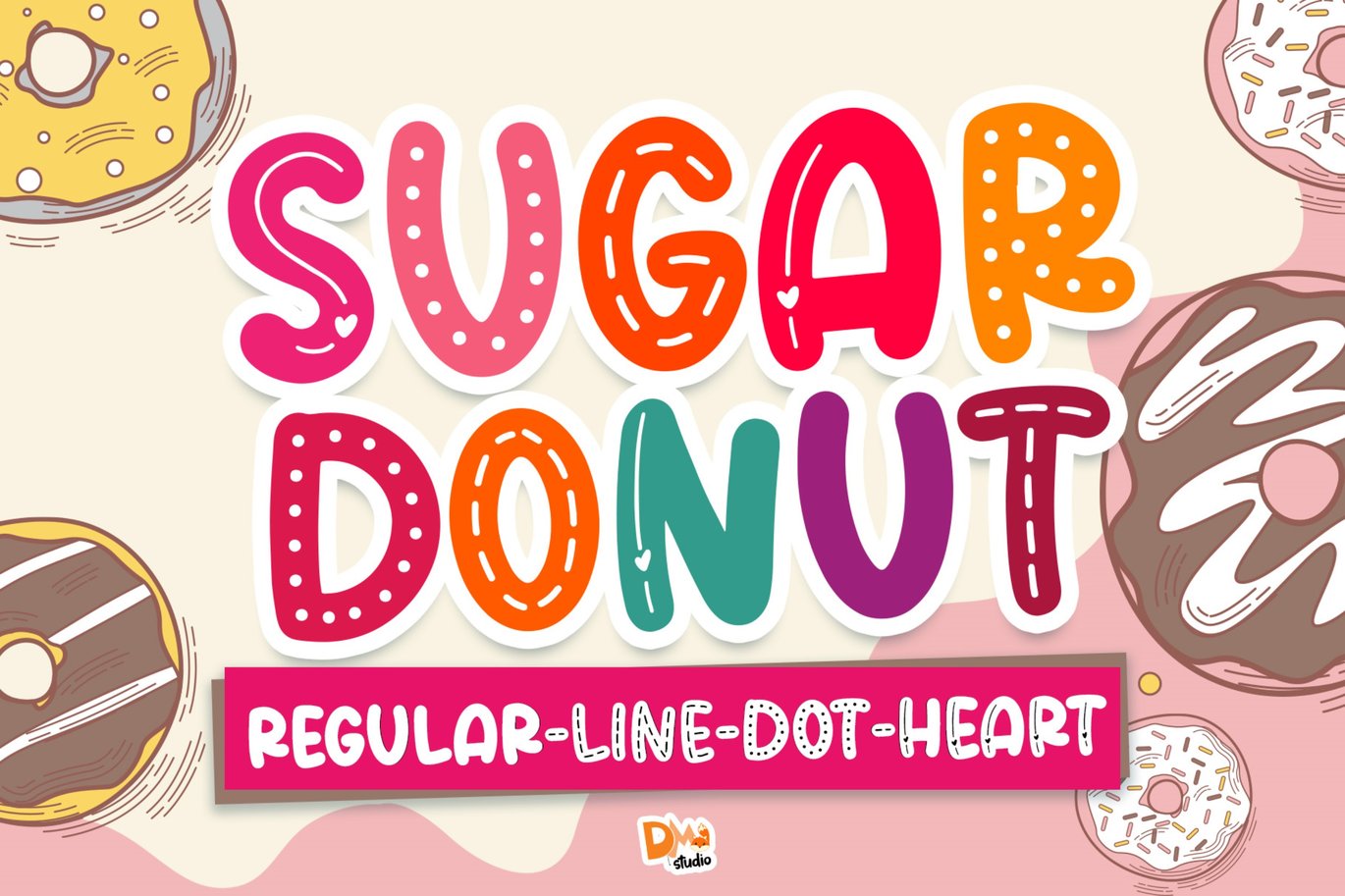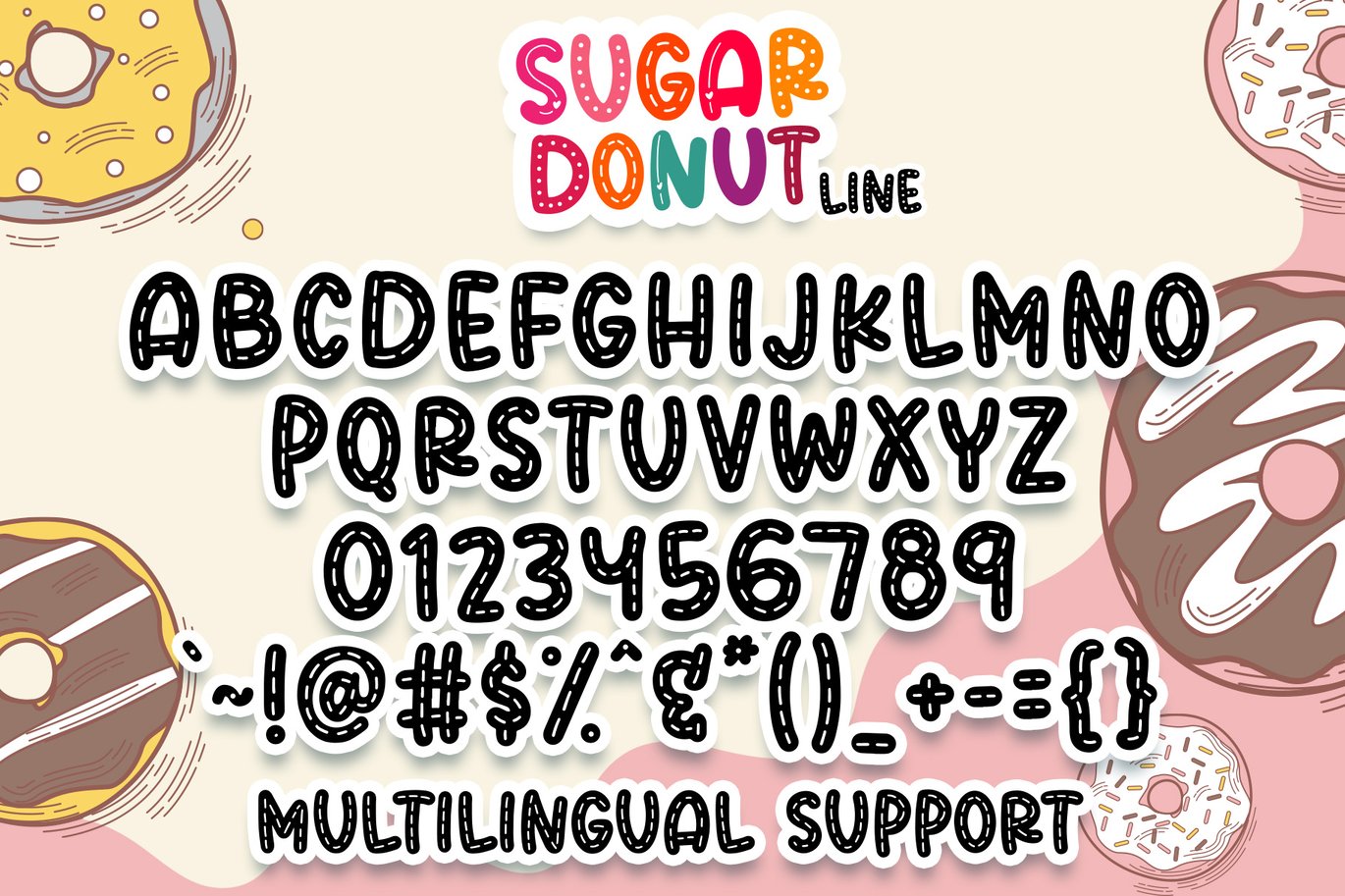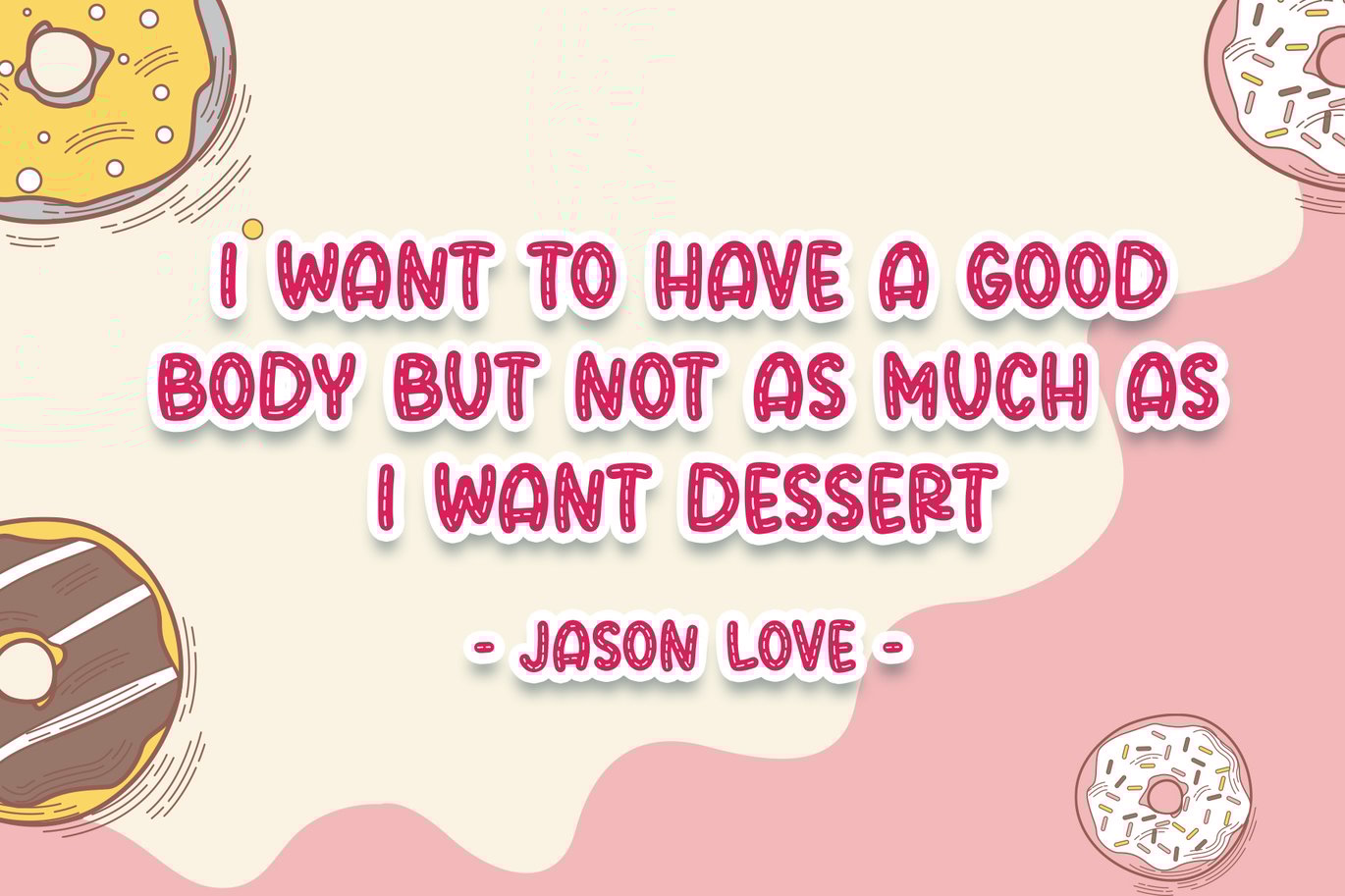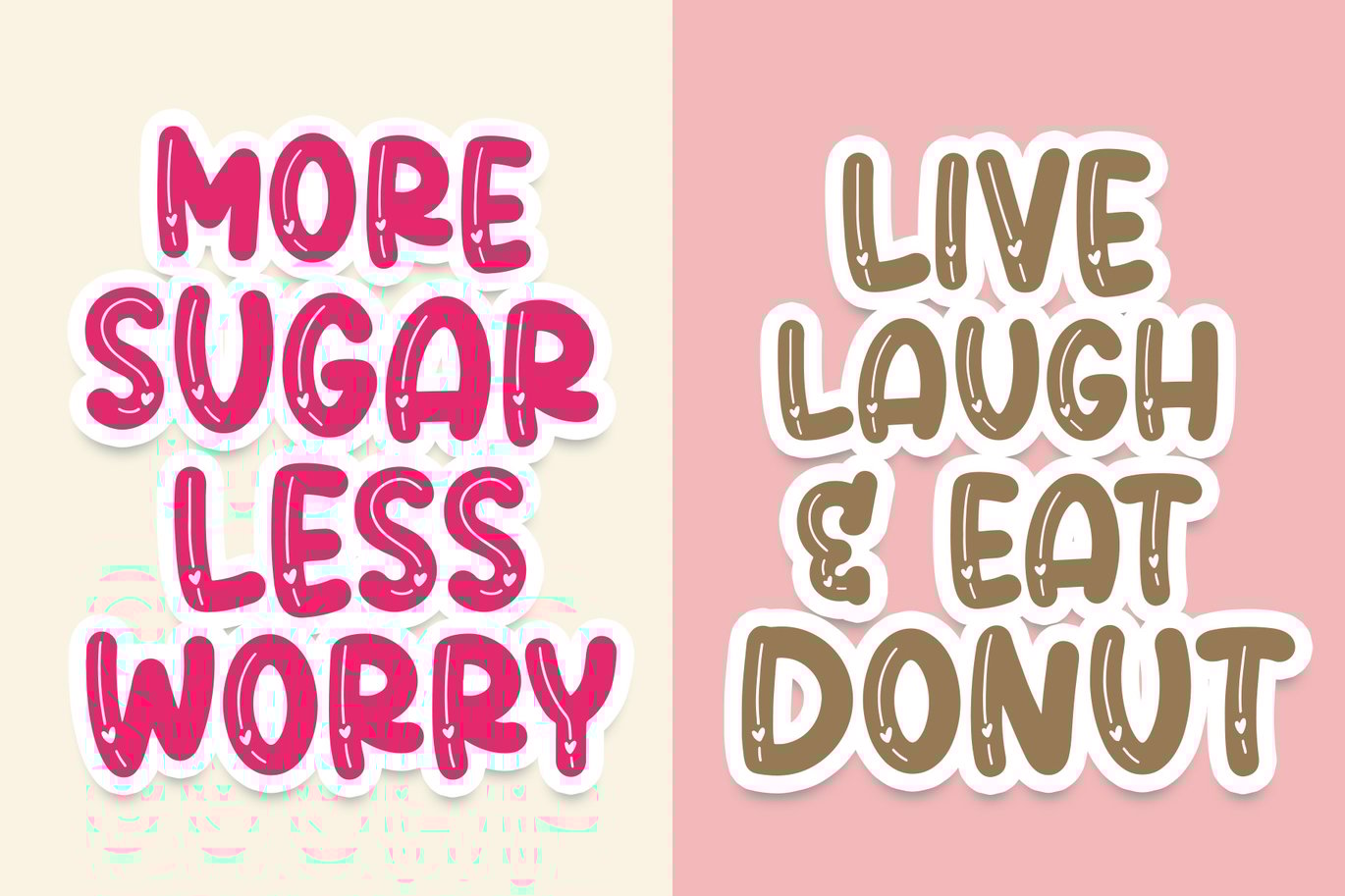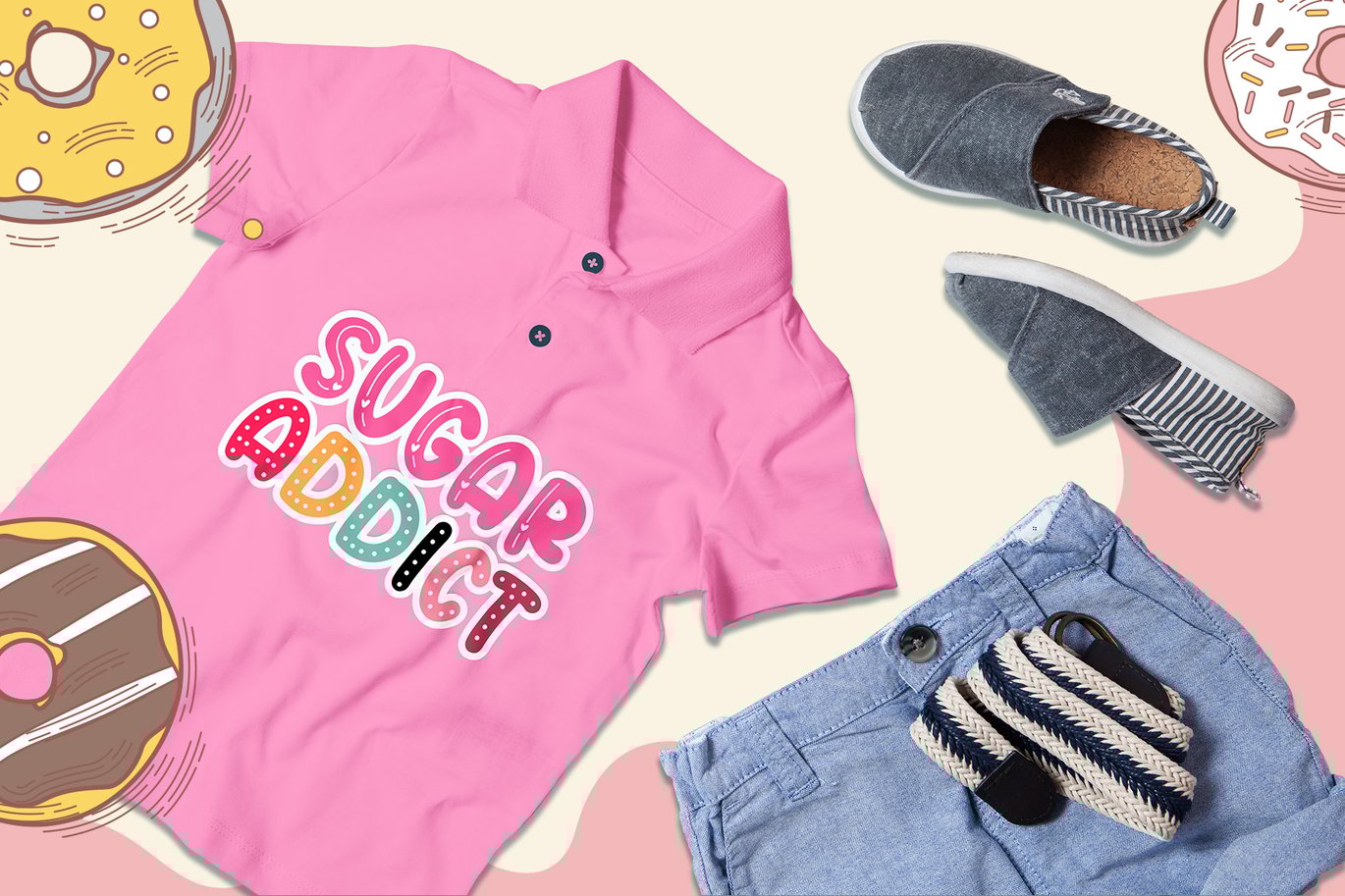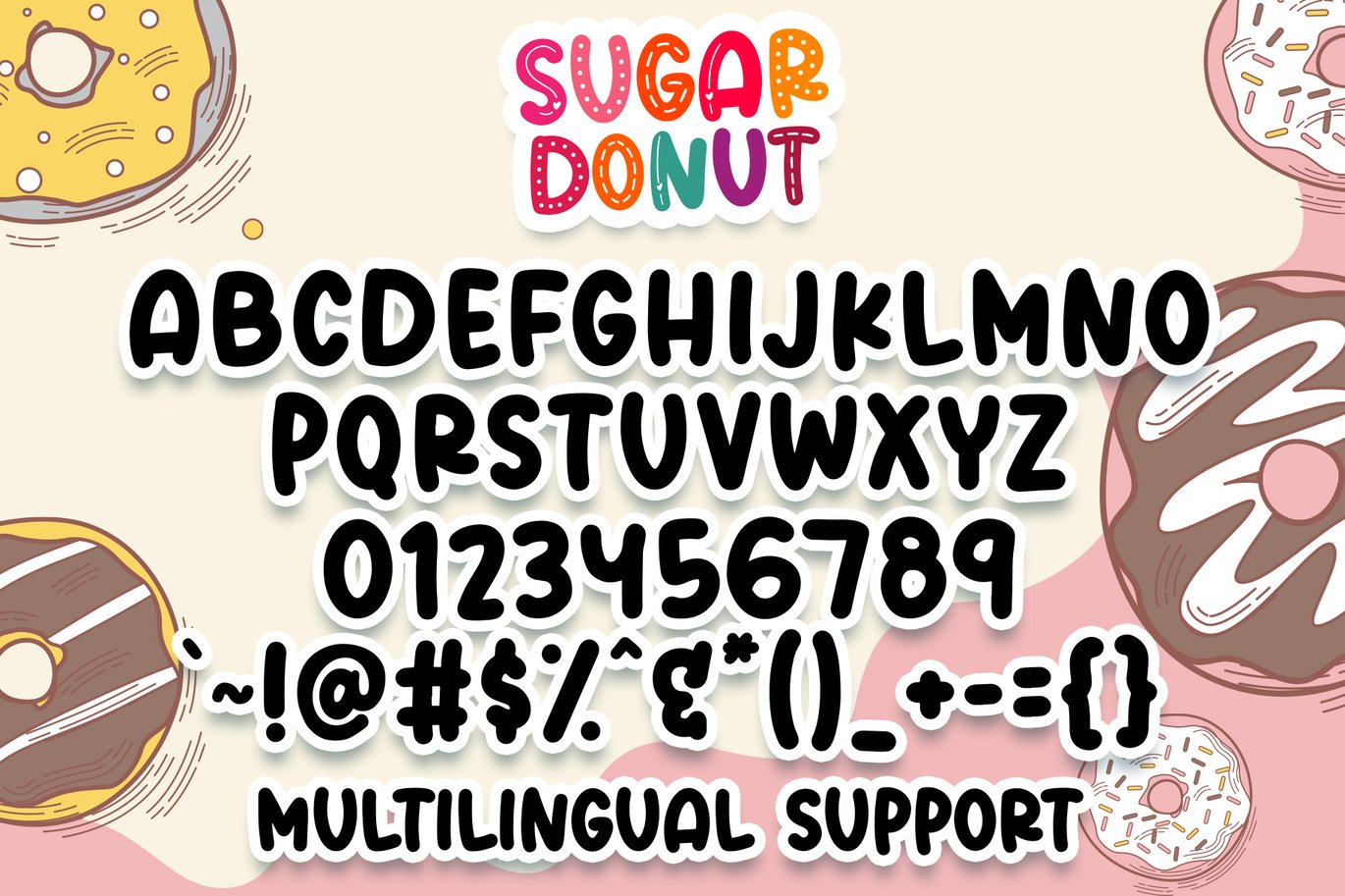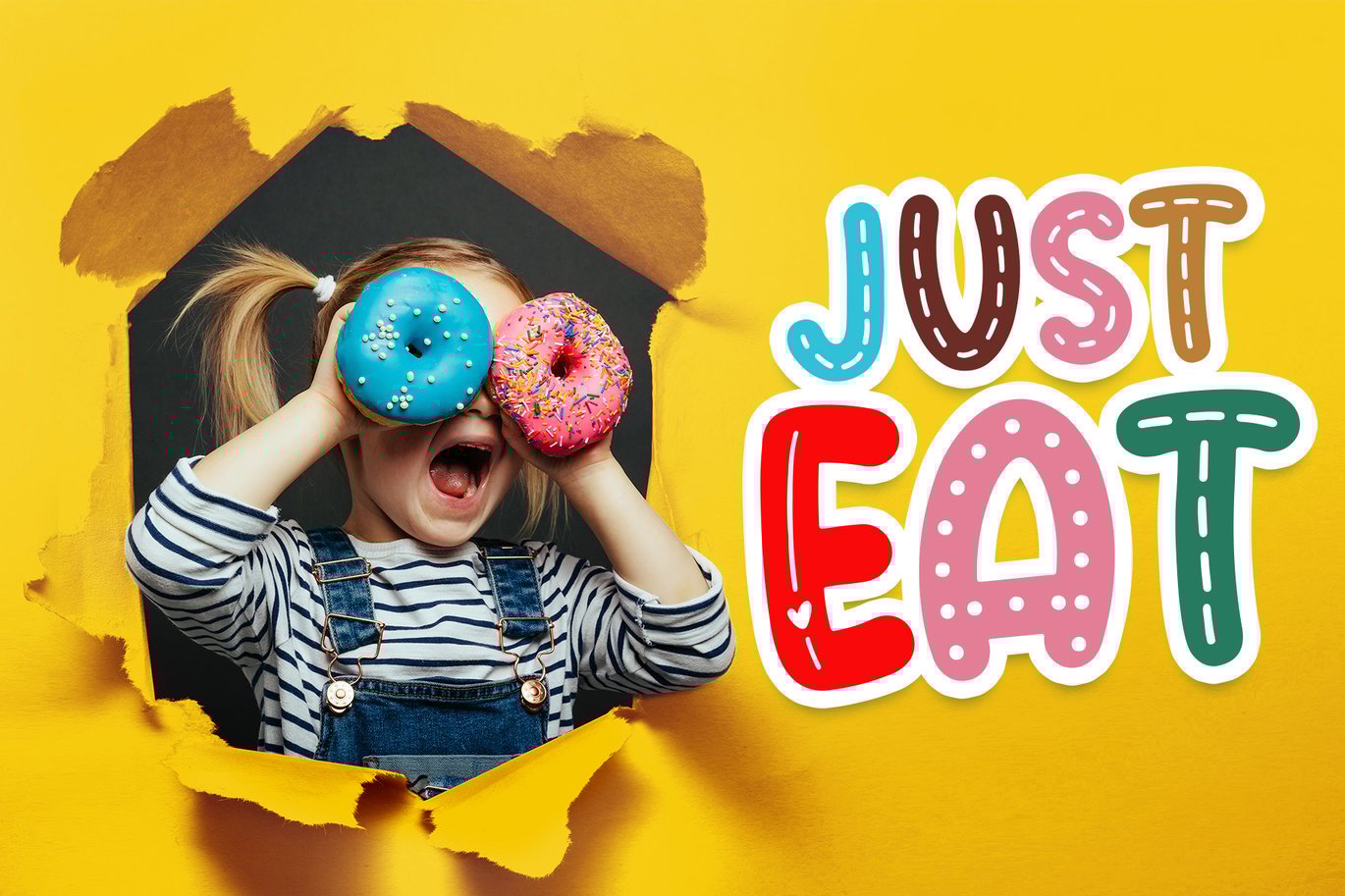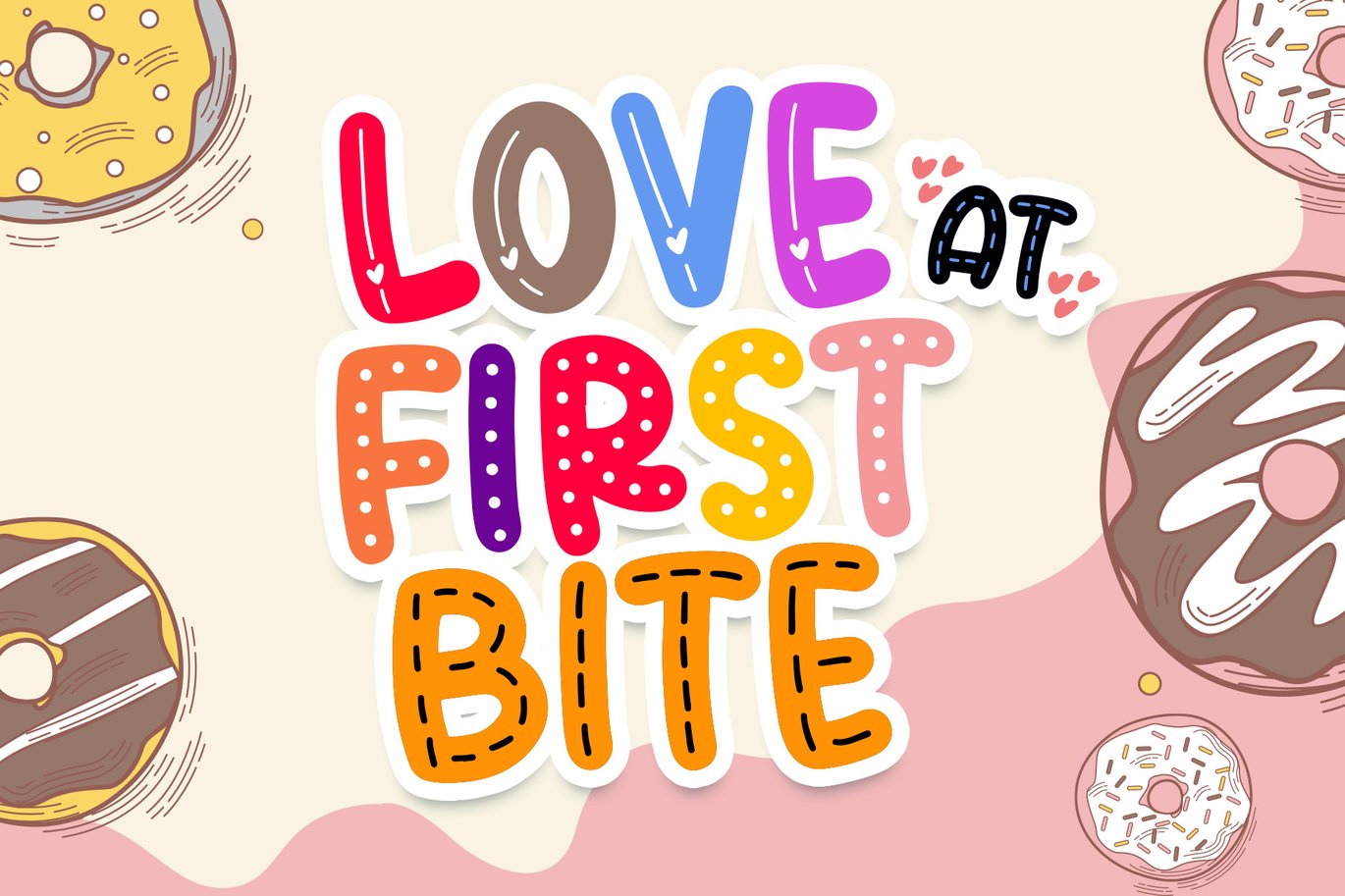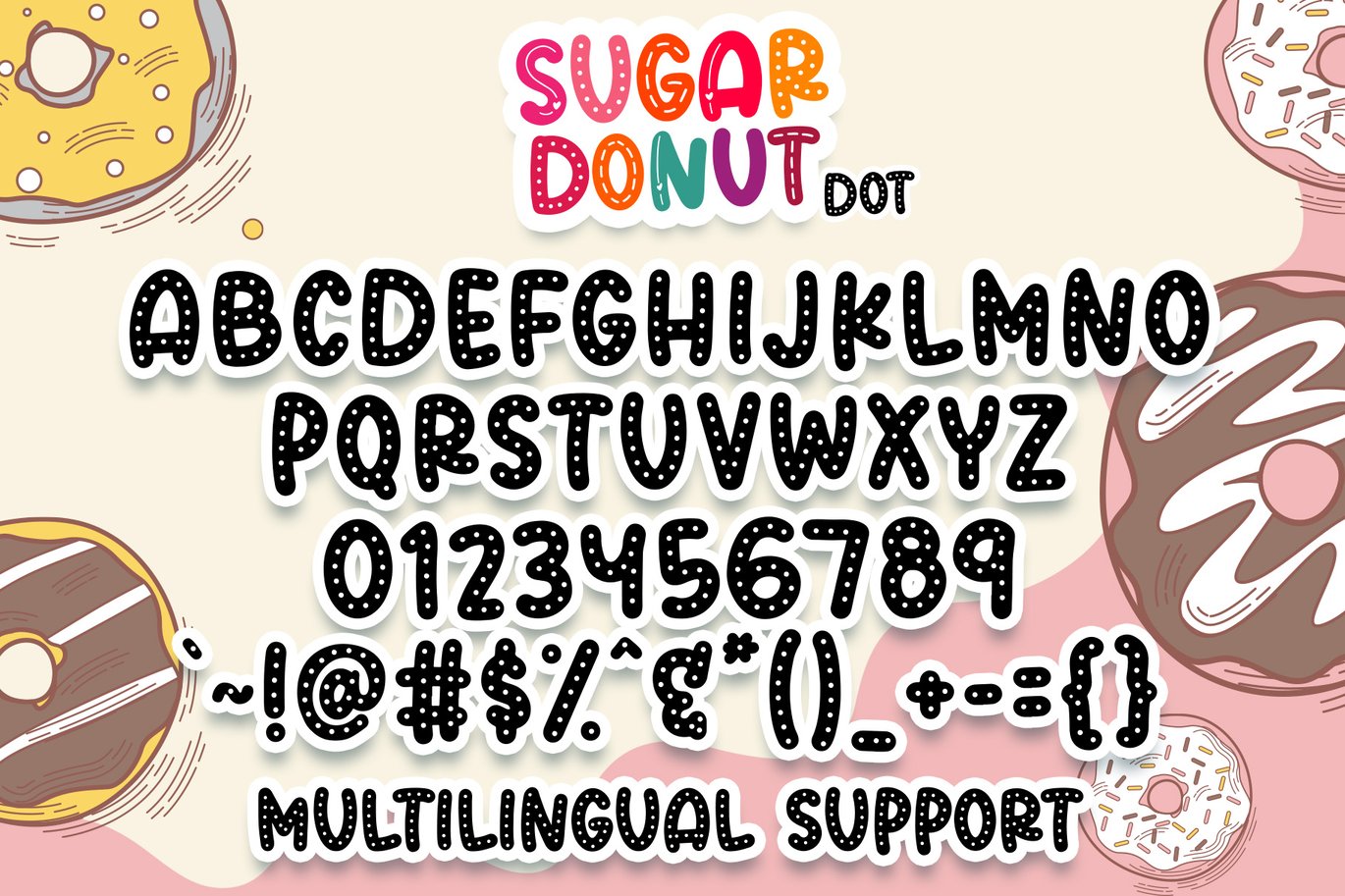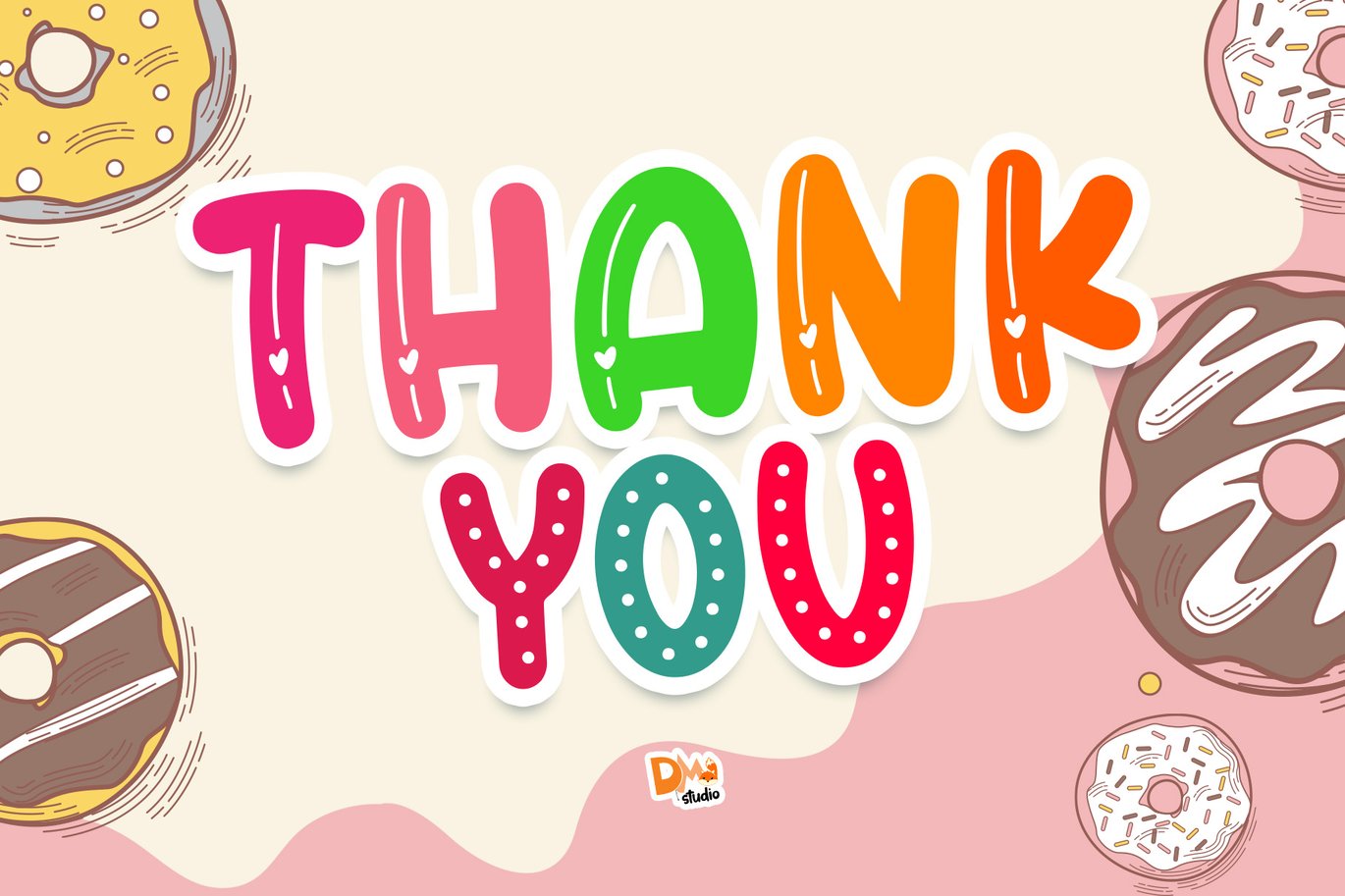
Sugar Donut Crafty Font
Sugar Donut the sweet, crafty fonts
Sugar donut made to bring you a happiness..
It’s bold, handwritten font with inner decoration to give the uniqueness.
Comes in 4 styles of font, you can combine them or even make it stand alone in your crafting projects!
- All in caps
- 4 styles ( Regular, Line stitch, Dot, heart )
- Numerals
- Symbols